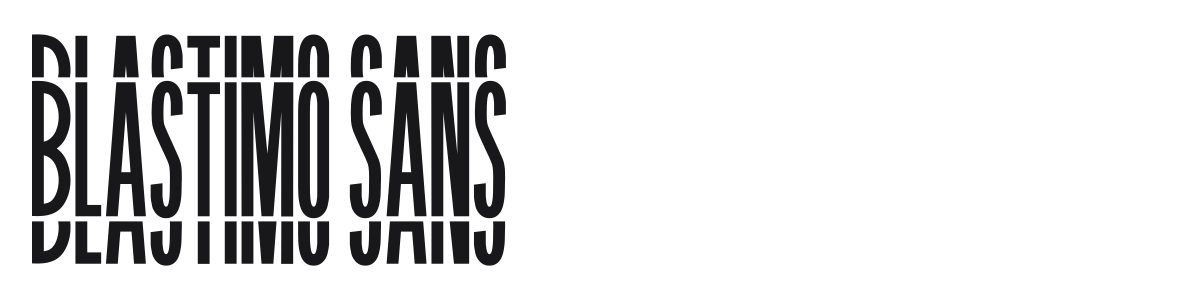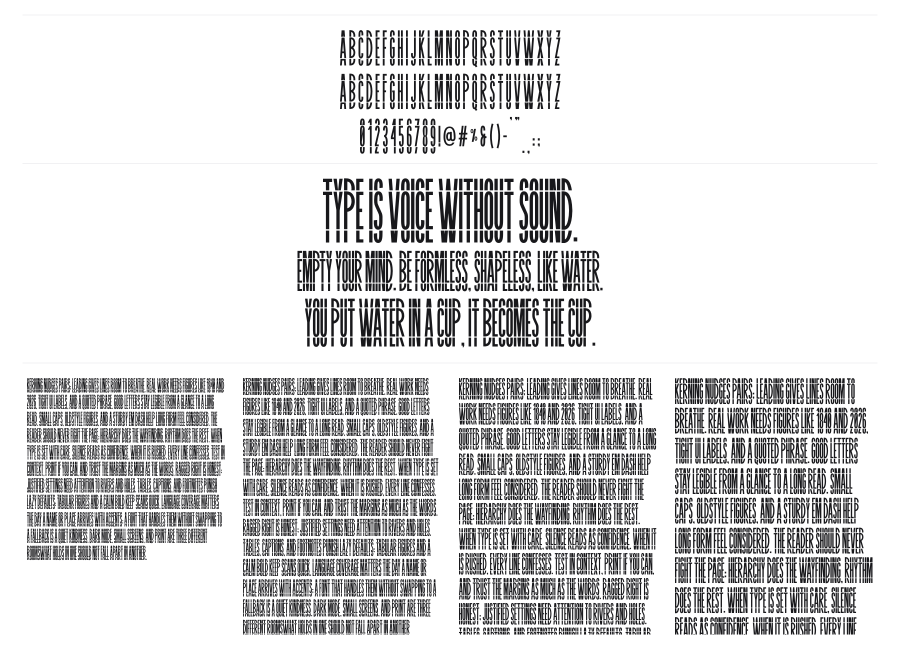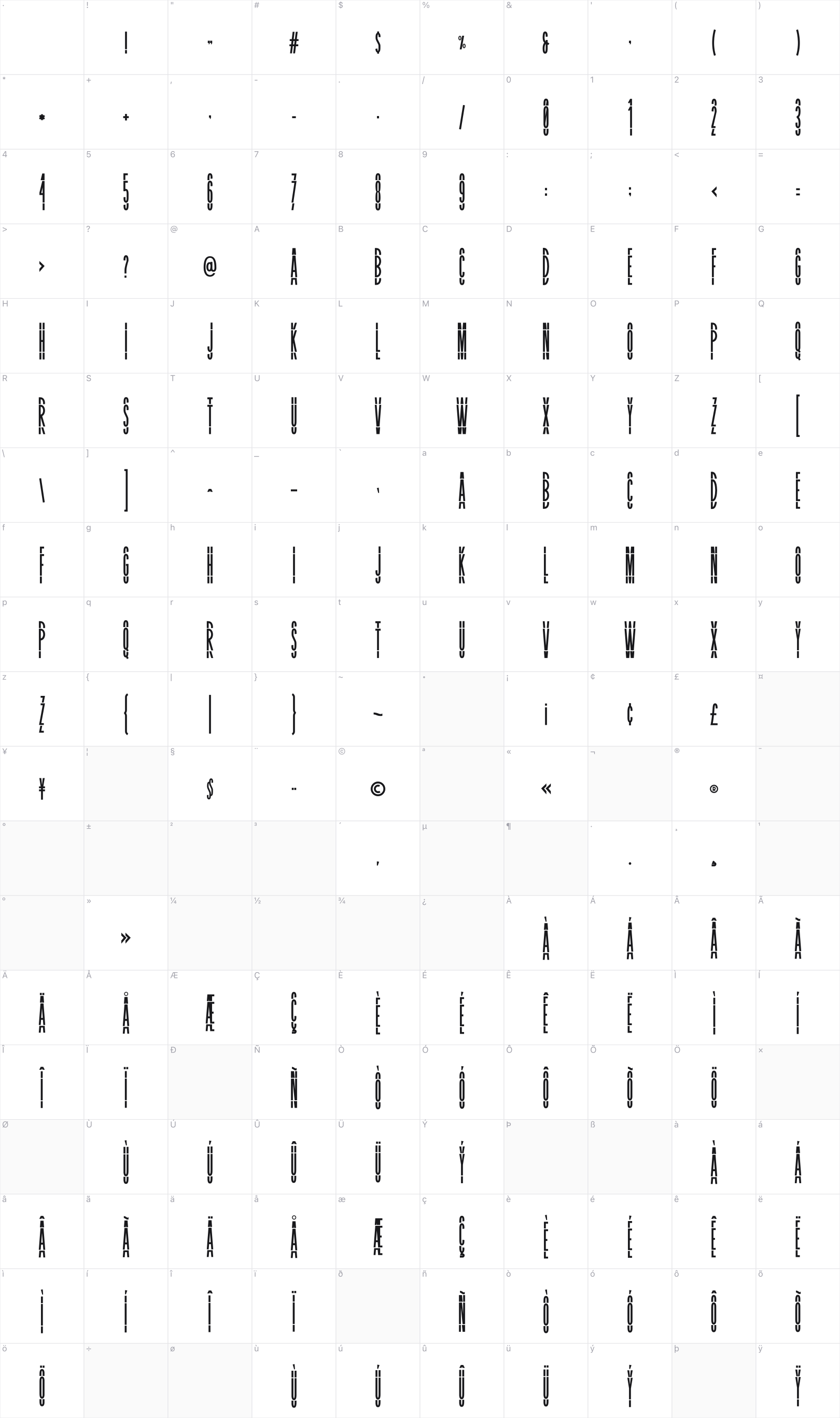
Blastimo Sans
Blastimo Sans is an ultra-condensed heavy sans with a stacked distortion effect that offsets characters vertically for a kinetic, layered look. The extreme compression and black weight make it hit hard at large sizes. It suits poster headlines, album art, and sport or gaming titles where raw visual impact is the goal.